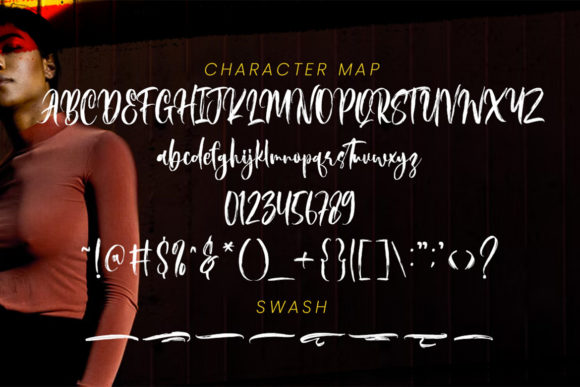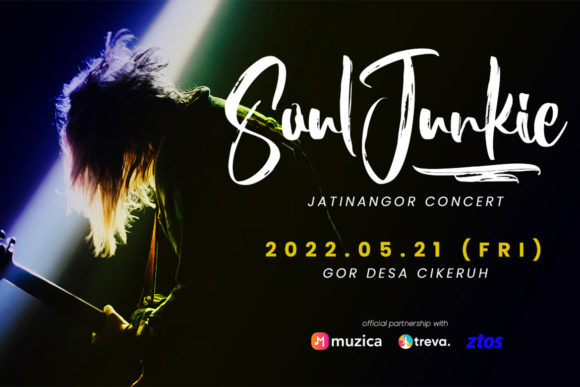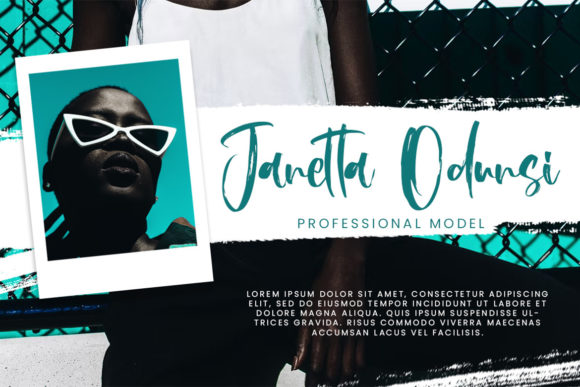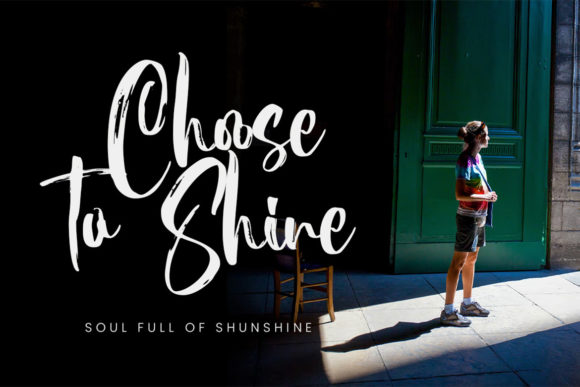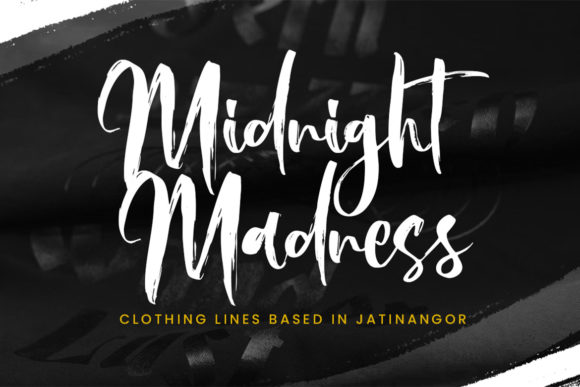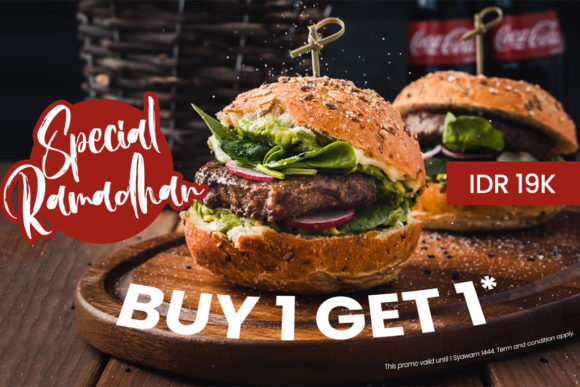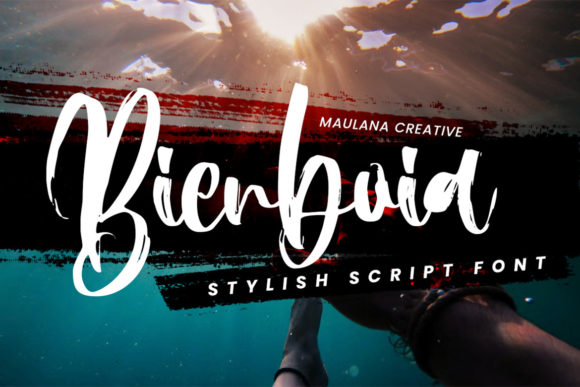
The Quest for the Perfect Font: Discovering Bienboia
I’ll never forget the design project that led me to Bienboia. I was working on a branding campaign for a trendy new coffee shop, and I needed a font that would capture their laid-back, yet sophisticated vibe. I spent hours scouring font websites, but nothing seemed quite right. That was until I stumbled upon Bienboia – a free-flowing and brushed script font that instantly won me over.
First Impressions: A Beautiful and Balanced Character
Bienboia is a stunning script font designed for packaging products, invitation cards, flyers, mockups, event posters, and anything else that requires high-quality vibes. Its beautiful and balanced character makes it an excellent fit for a wide range of design projects. Whether you’re a designer, crafter, or creative hobbyist, Bienboia is definitely worth adding to your font collection.
What I Love About Bienboia
- ✨ Elegant and flowing script style that’s perfect for headlines and titles
- 💫 Beautifully crafted to give your designs a touch of sophistication
- 🎉 Extensive OpenType features, including glyphs and stylistic alternates
While Bienboia is an excellent font, it’s not without its quirks. For example:
- ⚠️ Some users may find the font a bit too ornate for certain design projects
- 🤔 Limited use of uppercase letters, which can make it less suitable for certain types of design
The Story Behind Bienboia: Designer Inspiration
Bienboia was designed with the intention of creating a beautiful and elegant script font that would capture the essence of high-quality design. The designer drew inspiration from classic script fonts, while also incorporating modern elements to create a unique and stylish look.
Q: What type of designs is Bienboia best suited for?
A: Bienboia is perfect for designs that require a touch of elegance and sophistication, such as packaging products, invitation cards, flyers, and event posters.